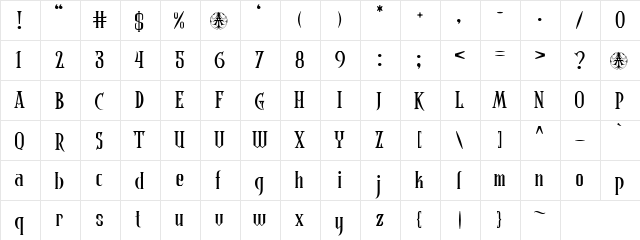
Coaster Ghost Personal Use Only Regular
| Foundry | @typealiens |
| Designer | TypeAliens |
Design Context for Coaster Ghost Personal Use Only Typeface
Coaster Ghost Personal Use Only is a composed and adaptable typeface that performs quietly and consistently across a wide range of design contexts.